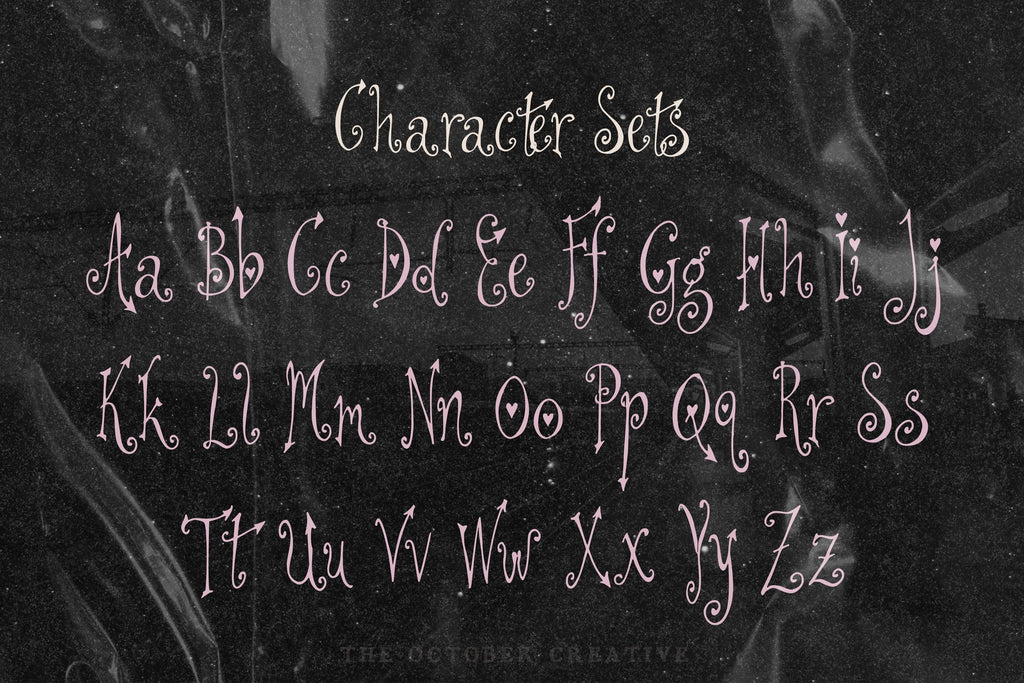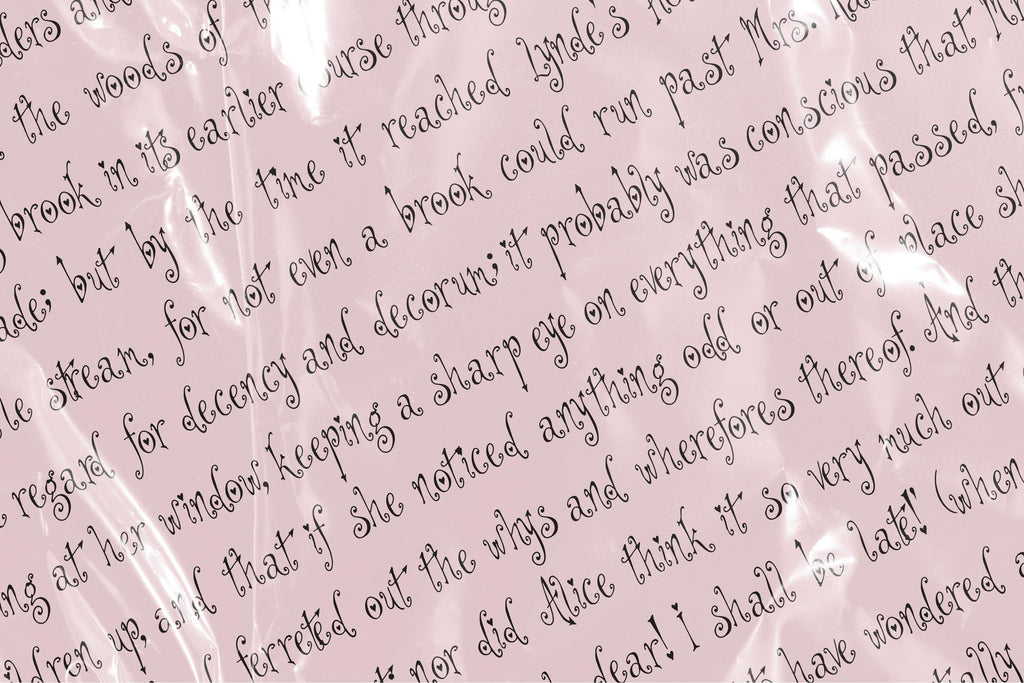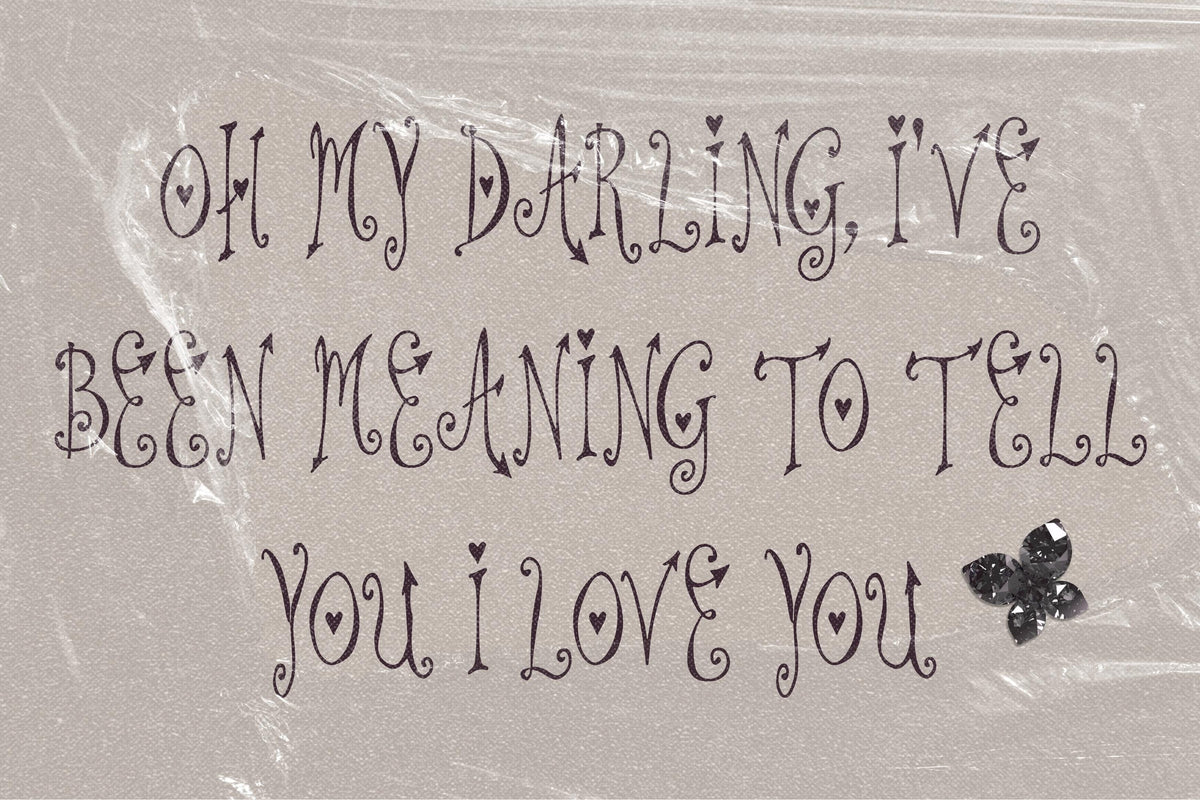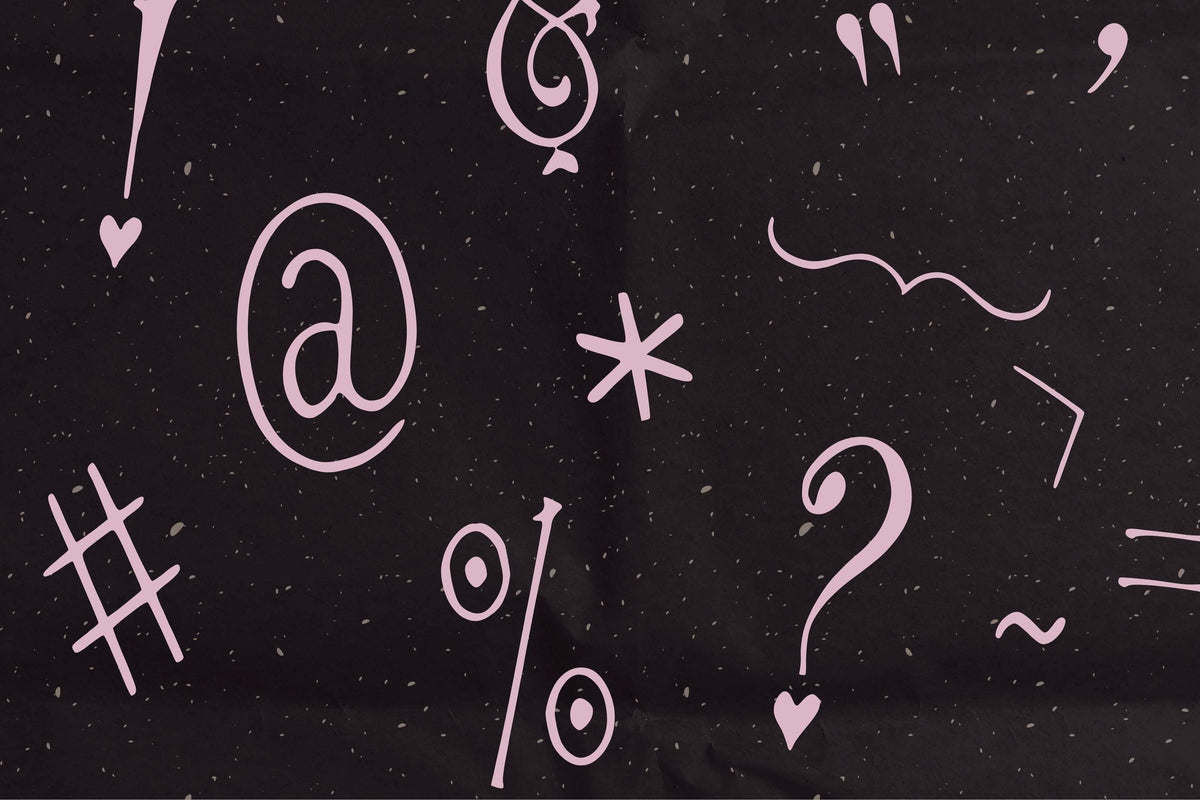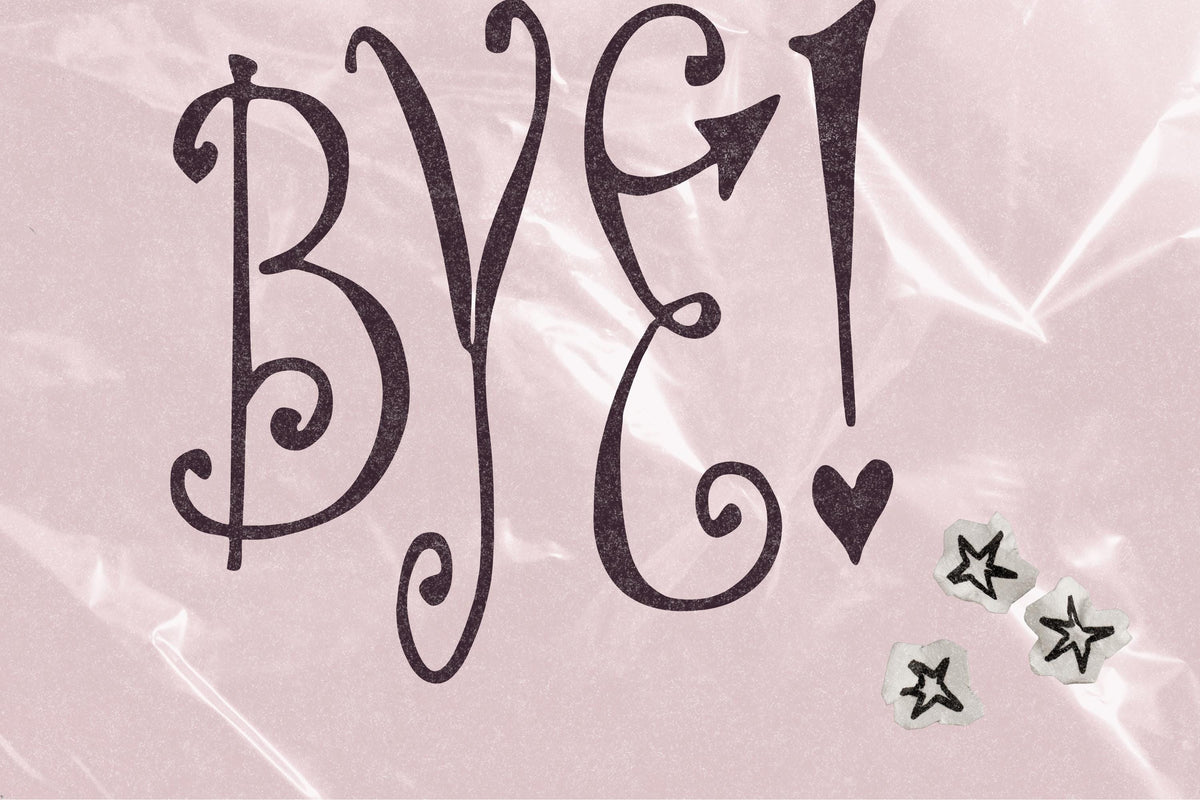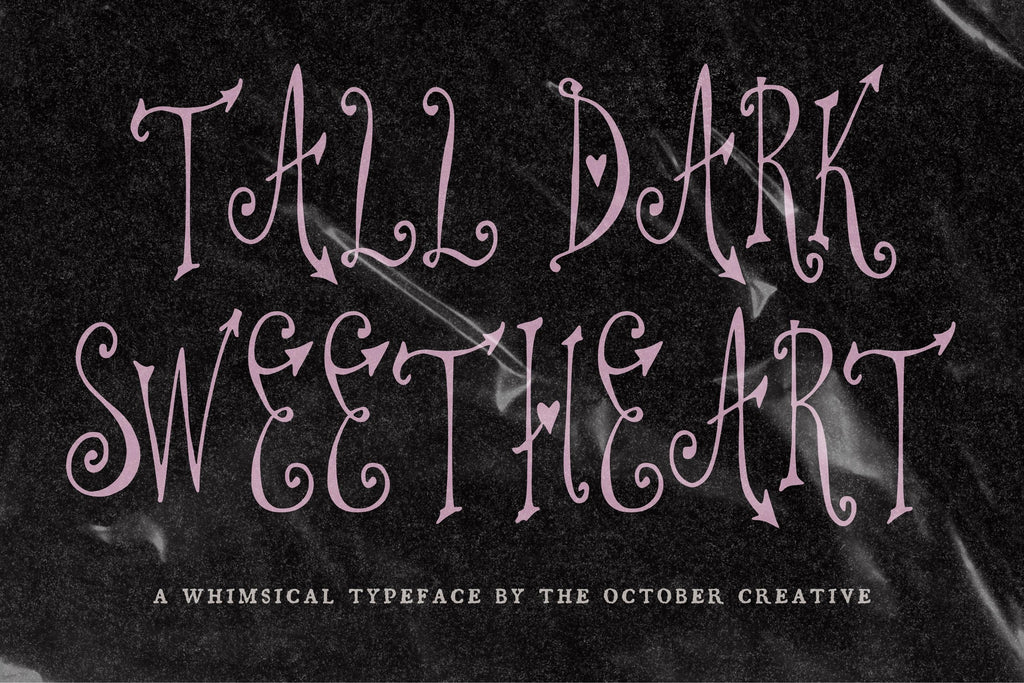
Tall Dark Sweetheart Font
Tall Dark Sweetheart tucks little hearts and arrowheads into tall, delicate letters. Use it for Valentine's cards, love notes, and gift tags when you'd like the lettering to do a little flirting for you.